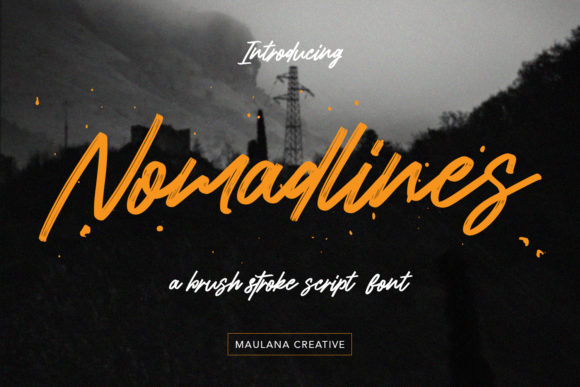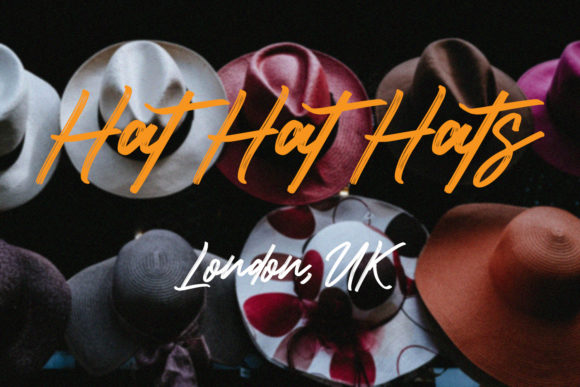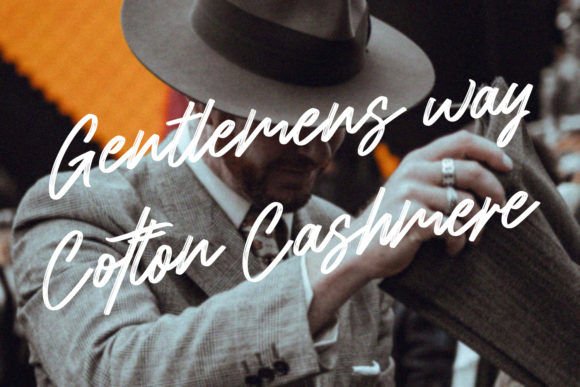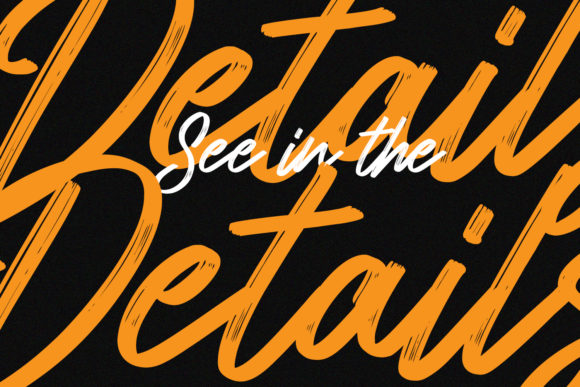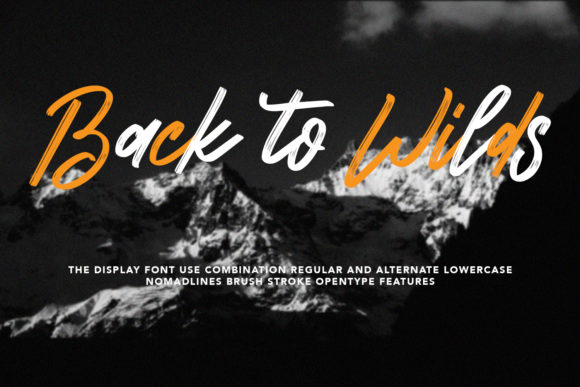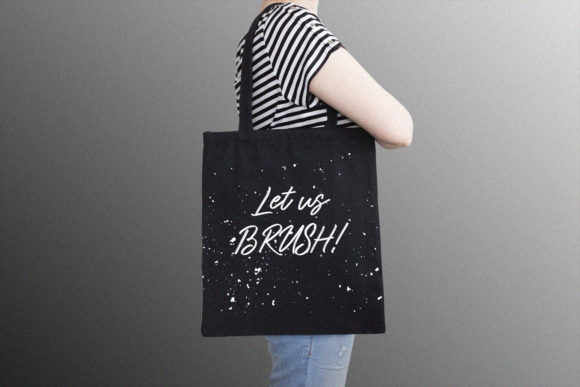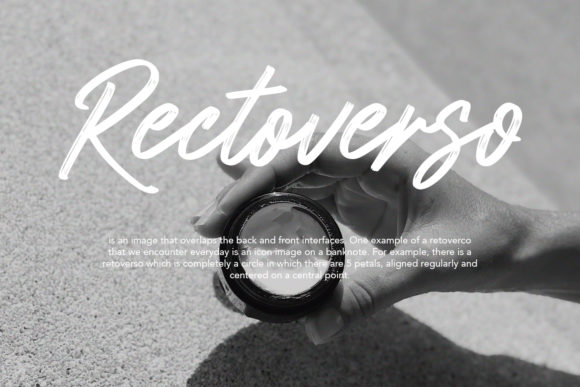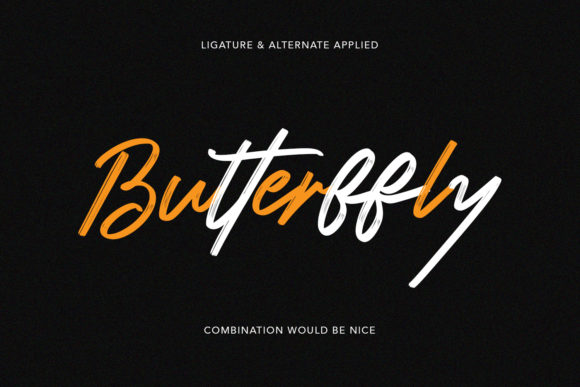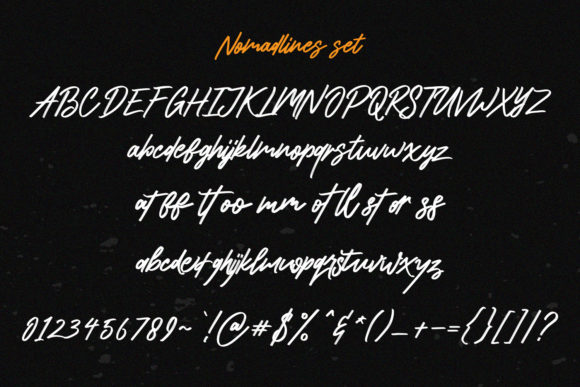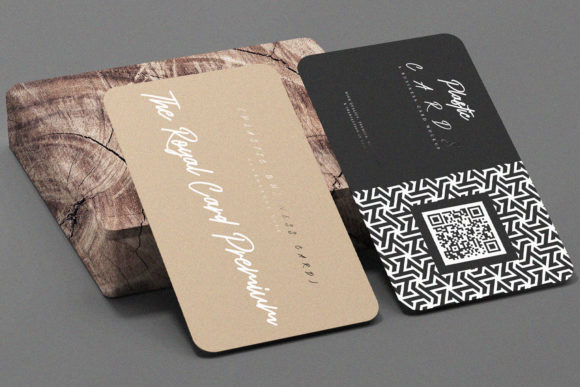
Nomadlines Font
About Nomadlines Font
Nomadlines is a captivating cursive and daring handwritten font that brings a stylish and dynamic touch to your headlines, logotypes, and various design projects. With its bold and confident appearance, this font is designed to make a bold statement and evoke a sense of nostalgia.
The unique and flowing characters of Nomadlines give it a distinctive personality and make it stand out in any design. Whether you’re creating logos, headlines, posters, or other typographic elements, Nomadlines adds a touch of elegance and character to your designs.
The daring nature of Nomadlines font allows it to command attention and create a strong visual impact. Its confident strokes and dynamic curves make it suitable for projects that require a bold and expressive aesthetic. Whether you’re designing for fashion, branding, or any other creative endeavor, Nomadlines font will elevate your designs and give them a stylish edge.
Furthermore, Nomadlines font can evoke a sense of nostalgia with its handcrafted and imperfect appearance. This adds a charming and authentic feel to your designs, making them feel more personal and relatable. It brings a touch of vintage or retro flair, allowing you to create designs that resonate with a specific era or evoke a nostalgic atmosphere.
In summary, Nomadlines is a cursive and daring handwritten font that brings style, confidence, and a hint of nostalgia to your headlines, logotypes, and various design projects. Its strong and dynamic appearance, combined with its handcrafted charm, makes it a versatile choice for creating impactful and memorable designs.